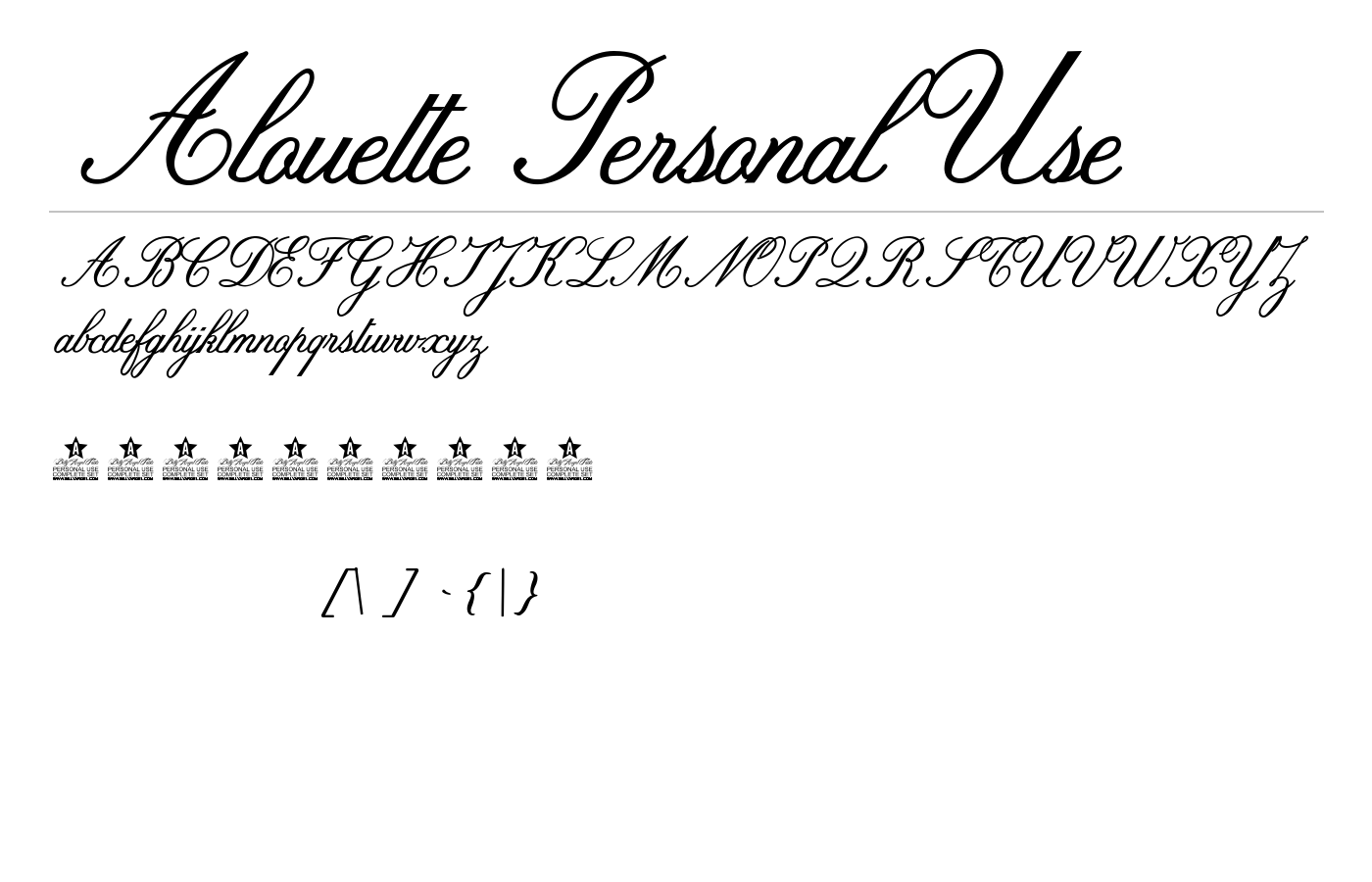
Alouette Personal Use is an elegant script font with a delicate, flowing style that mimics classic handwritten calligraphy. Its slender, smooth strokes and refined letterforms create a sophisticated and graceful appearance, making it well-suited for invitations, branding, and projects that require a touch of vintage charm and personal warmth.
Alouette Personal Use Font
About Alouette Personal Use Font
| Font family | Alouette Personal Use Font |